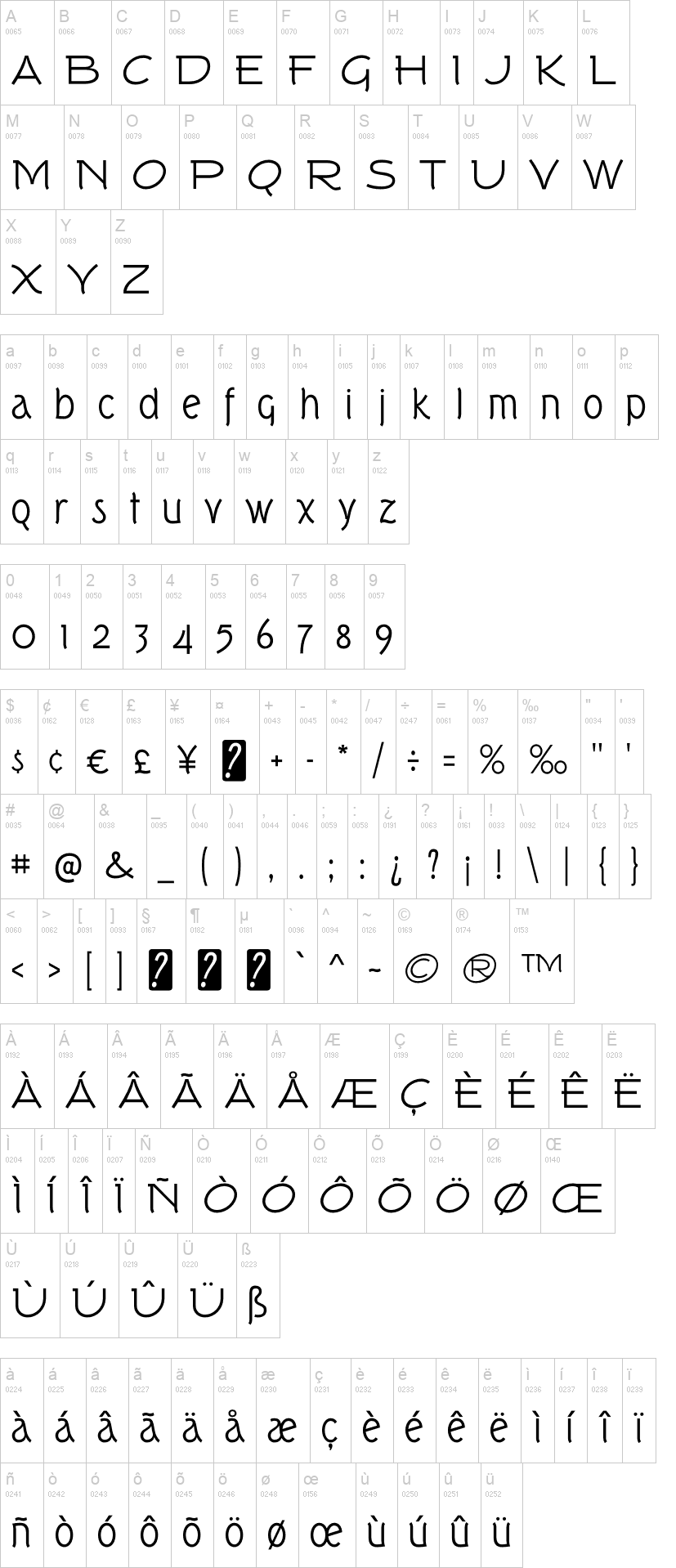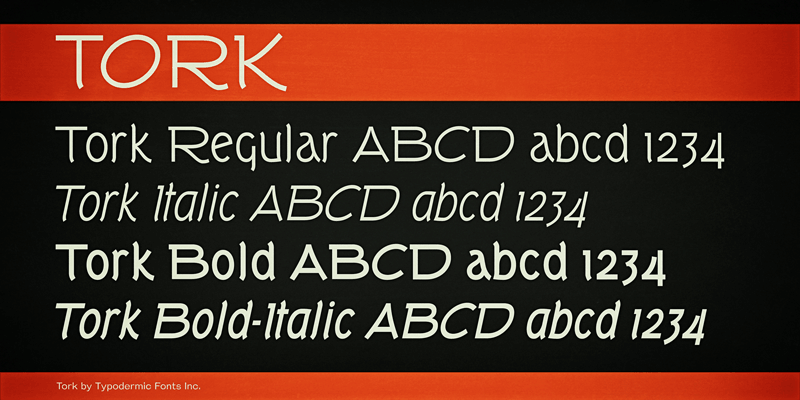
Tork Rg It.otfTork Bd.otfTork Bd It.otfNote of the authorTork takes the traditional sans serif, rips its sweater, and flips it up on its good-for-nothing head, leaving it to wallow in a puddle of its own brokenhearted misery and despair.